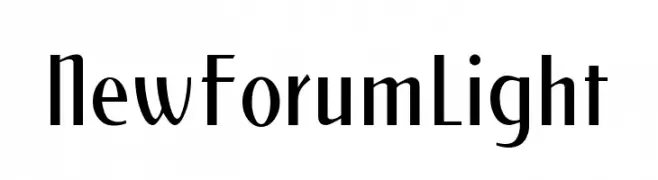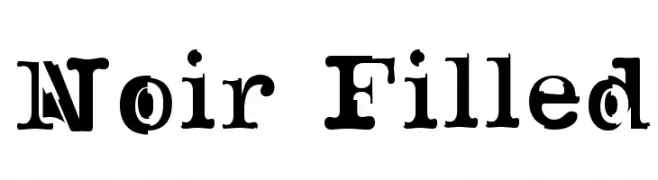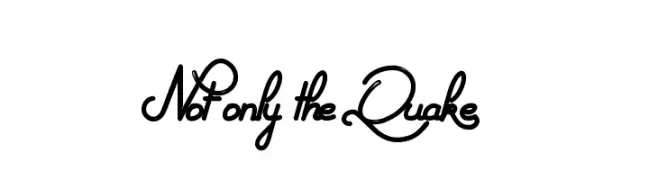
A dynamic and elegant italic font with smooth curves and moderate contrast.
A modern, art deco-inspired font with high contrast and elegant curves.
An elegant, light italic font with a dynamic and fluid style.
A sleek, modern font with an Art Deco influence, featuring elongated, narrow characters and high contrast.
A bold, vintage-style serif font with thick, filled strokes and pronounced serifs.
An elegant, flowing script font with ornate, interconnected letterforms.
A set of bold, geometric helmet icons with a modern, futuristic style.
A playful decorative font with festive holiday icons.
A geometric, angular font with a futuristic and abstract design.